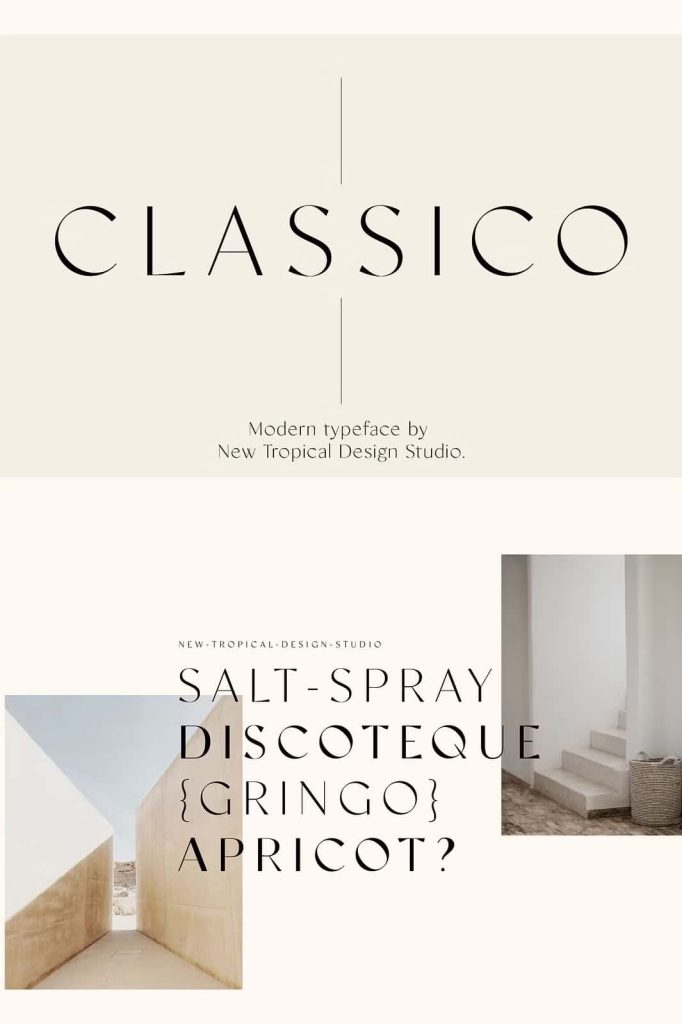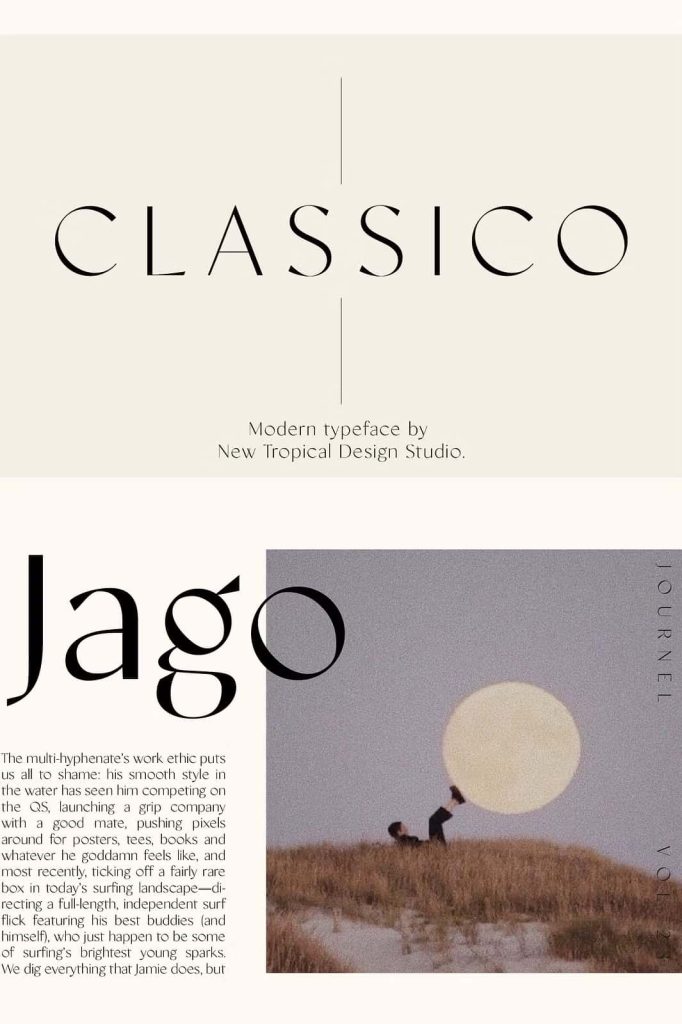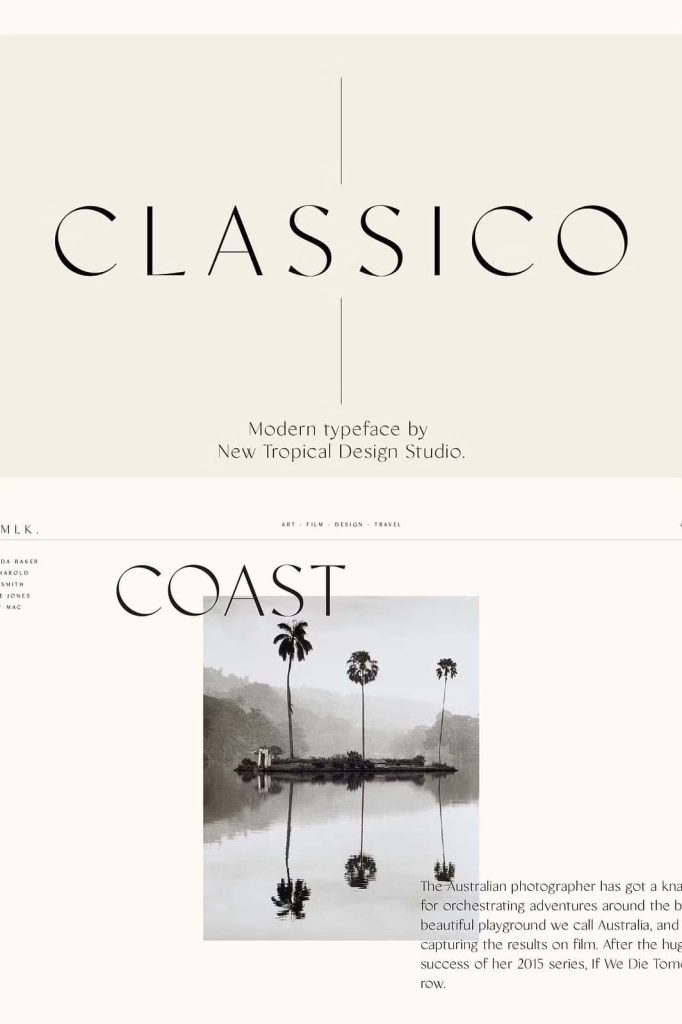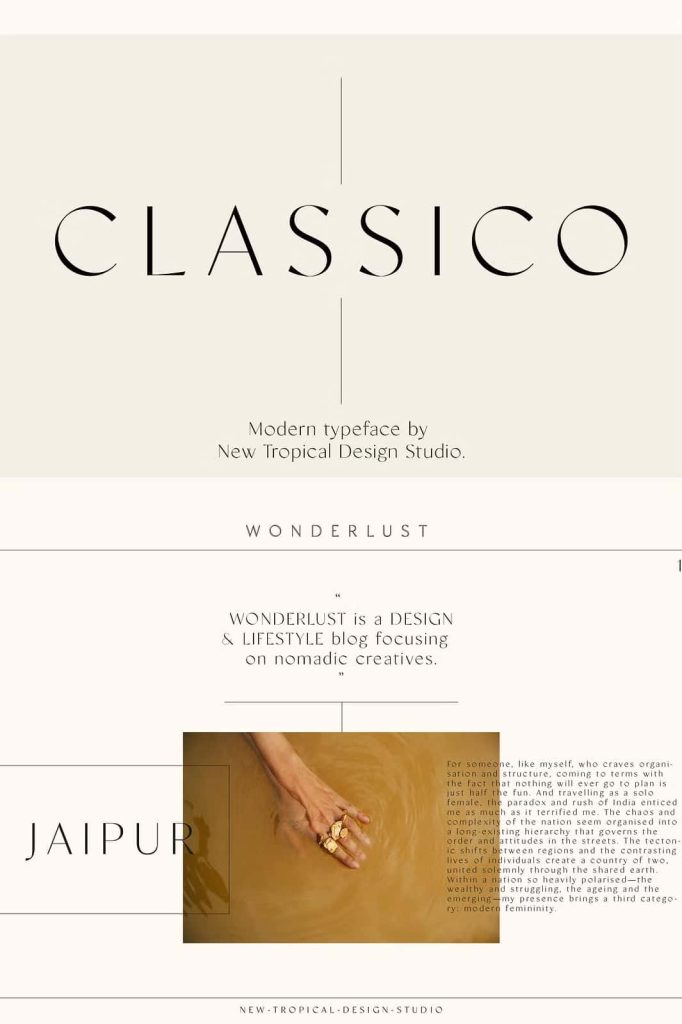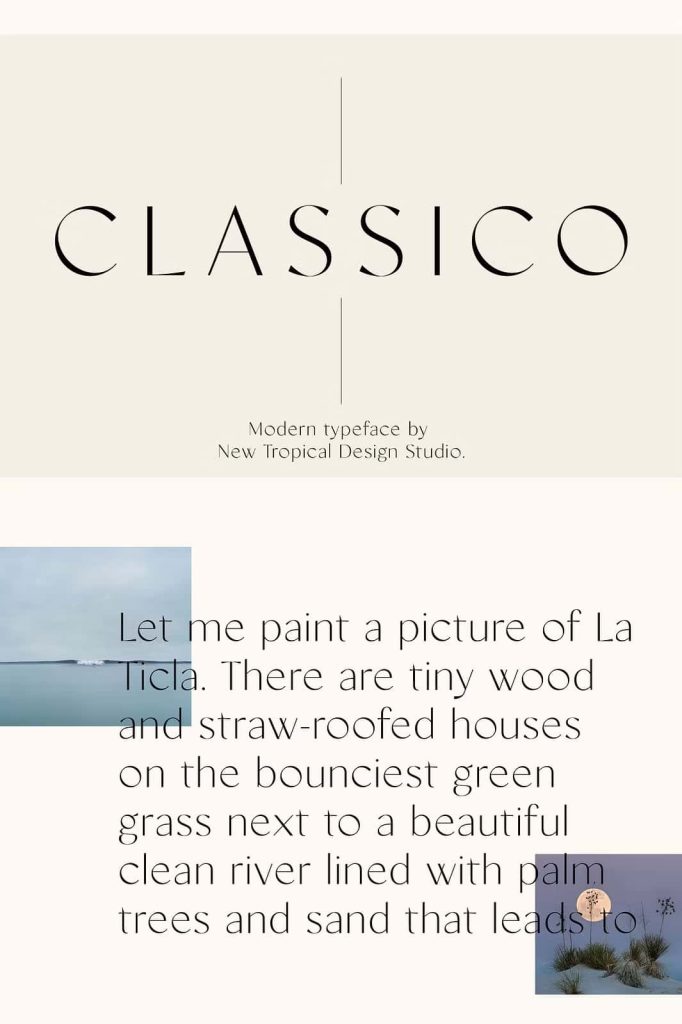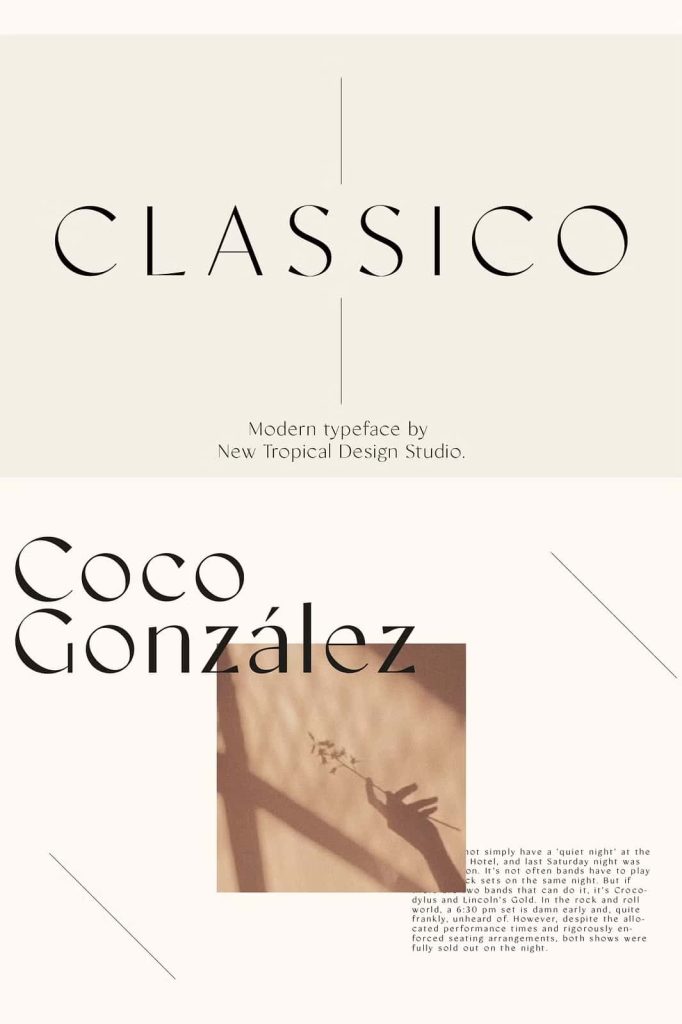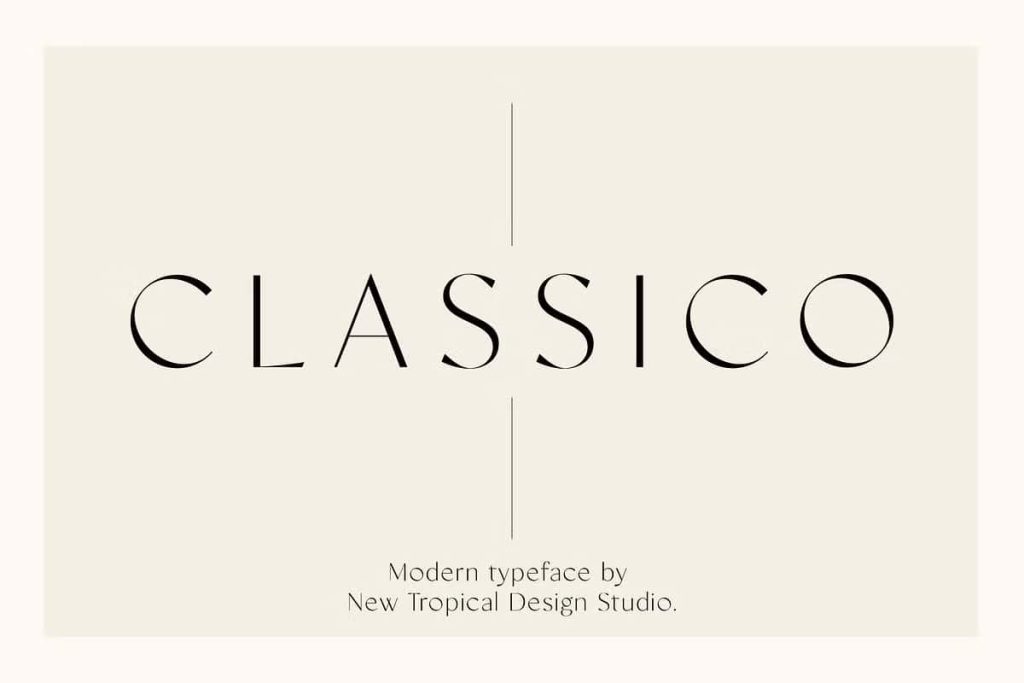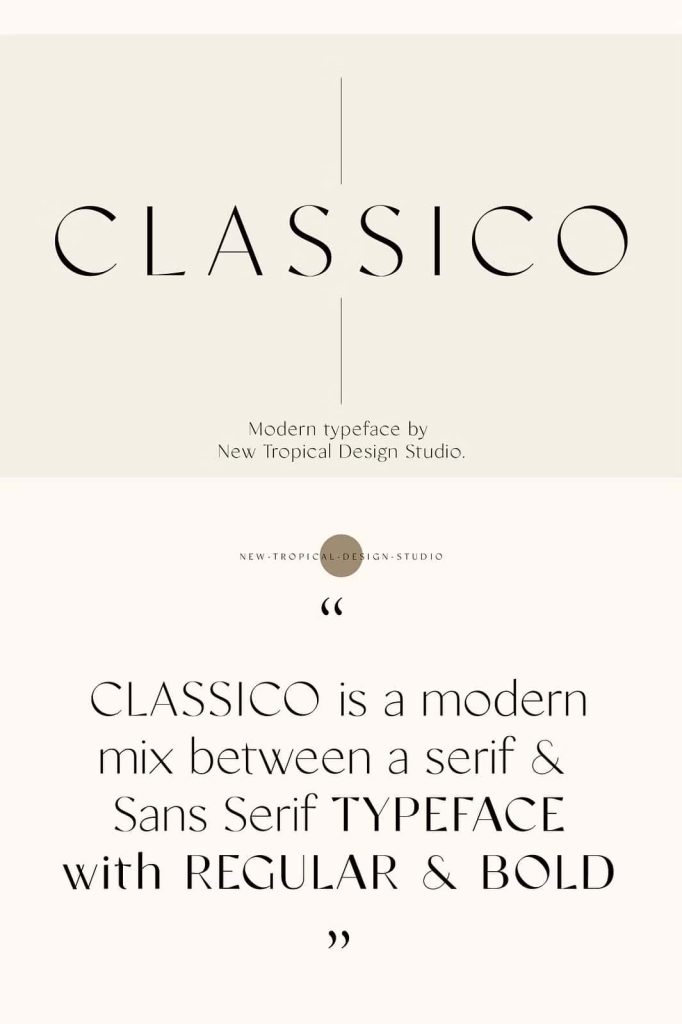
Classico – A Classic Minimal Font for Elegant Design
Classico is a stylish classic minimal font designed to bring elegance, balance, and sophistication to modern typography. This typeface combines timeless serif characteristics with a clean minimalist approach, allowing designers to create refined and visually appealing layouts. With its light structure and high contrast strokes, Classico delivers a graceful and fashionable appearance that works beautifully across many creative projects.
The font features delicate thin lines paired with stronger vertical strokes, producing the elegant contrast that defines classic editorial typography. These details give Classico a polished personality that feels both modern and timeless. Designers who appreciate minimalist aesthetics will find this typeface especially valuable for creating stylish visual identities.
Classico works particularly well in projects that require elegance, clarity, and subtle sophistication. Whether you are designing a fashion brand, a feminine logo, or an editorial layout, this font adds an upscale and professional touch to your typography.
A Perfect Balance Between Classic and Minimal
Classico successfully merges classic typographic tradition with modern minimalist design principles. Traditional serif fonts often feature decorative details, but Classico refines these elements into a cleaner and more contemporary structure. The result is a font that feels light, stylish, and highly versatile.
The high contrast between thick and thin strokes creates visual rhythm across each letter. This contrast adds elegance and movement, making text appear graceful and expressive. At the same time, the minimal design ensures that the font remains readable and adaptable for a wide range of applications.
By focusing on simplicity and proportion, Classico delivers a timeless typographic style that designers can use confidently in both print and digital environments.
Designed for Fashion and Feminine Branding
Fashion design often requires typography that communicates elegance, luxury, and confidence. Classico provides exactly that through its refined letterforms and graceful stroke contrast. The font feels delicate yet strong, making it an ideal choice for feminine branding and fashion-related projects.
Designers can use Classico to create memorable logo marks for beauty brands, fashion labels, boutiques, and lifestyle businesses. The clean shapes ensure that logos remain clear and recognizable while still appearing stylish and sophisticated.
Many feminine brands prefer fonts that express elegance without looking overly decorative. Classico achieves this balance perfectly by combining minimal structure with classic typographic beauty.
Ideal Design Applications
- Feminine logo design
- Fashion brand identities
- Editorial and magazine mastheads
- Luxury product packaging
- Beauty and lifestyle branding
- Website typography
- Elegant social media graphics
- Editorial headlines and titles
Perfect for Editorial and Magazine Design
Editorial typography requires fonts that provide both elegance and readability. Classico excels in this area thanks to its balanced proportions and carefully crafted letterforms. The high contrast strokes create strong visual hierarchy, making headlines and mastheads appear sophisticated and engaging.
Magazine designers often choose serif fonts with elegant contrast to create a professional editorial atmosphere. Classico fits naturally within this design tradition while maintaining a modern minimalist appearance.
The font performs beautifully in magazine titles, article headings, and feature layouts. It helps establish a refined visual tone that enhances the overall reading experience.
Create Elegant Typography with Minimal Effort
Classico allows designers to create elegant typography without adding unnecessary complexity. The font naturally enhances layouts through its graceful proportions and clean design structure. Even simple text compositions become visually appealing when styled with this classic minimal font.
The light strokes make the font especially suitable for large titles and display text. When used in headings or branding elements, Classico immediately communicates sophistication and confidence.
At the same time, the minimal design ensures that the typography never feels heavy or overwhelming. This balance makes the font suitable for both large display text and refined editorial layouts.
A Timeless Typeface for Modern Designers
Classico offers a reliable typographic solution for designers who want a font that feels timeless, elegant, and versatile. Its combination of classic serif contrast and minimalist structure makes it adaptable for many types of design work.
Designers can integrate this font into branding systems, fashion publications, luxury packaging, and modern digital designs. Because the letterforms remain simple and refined, the font continues to look relevant across changing design trends.
If you are searching for a font that combines classic beauty with modern minimalism, Classico will quickly become an essential part of your design toolkit.